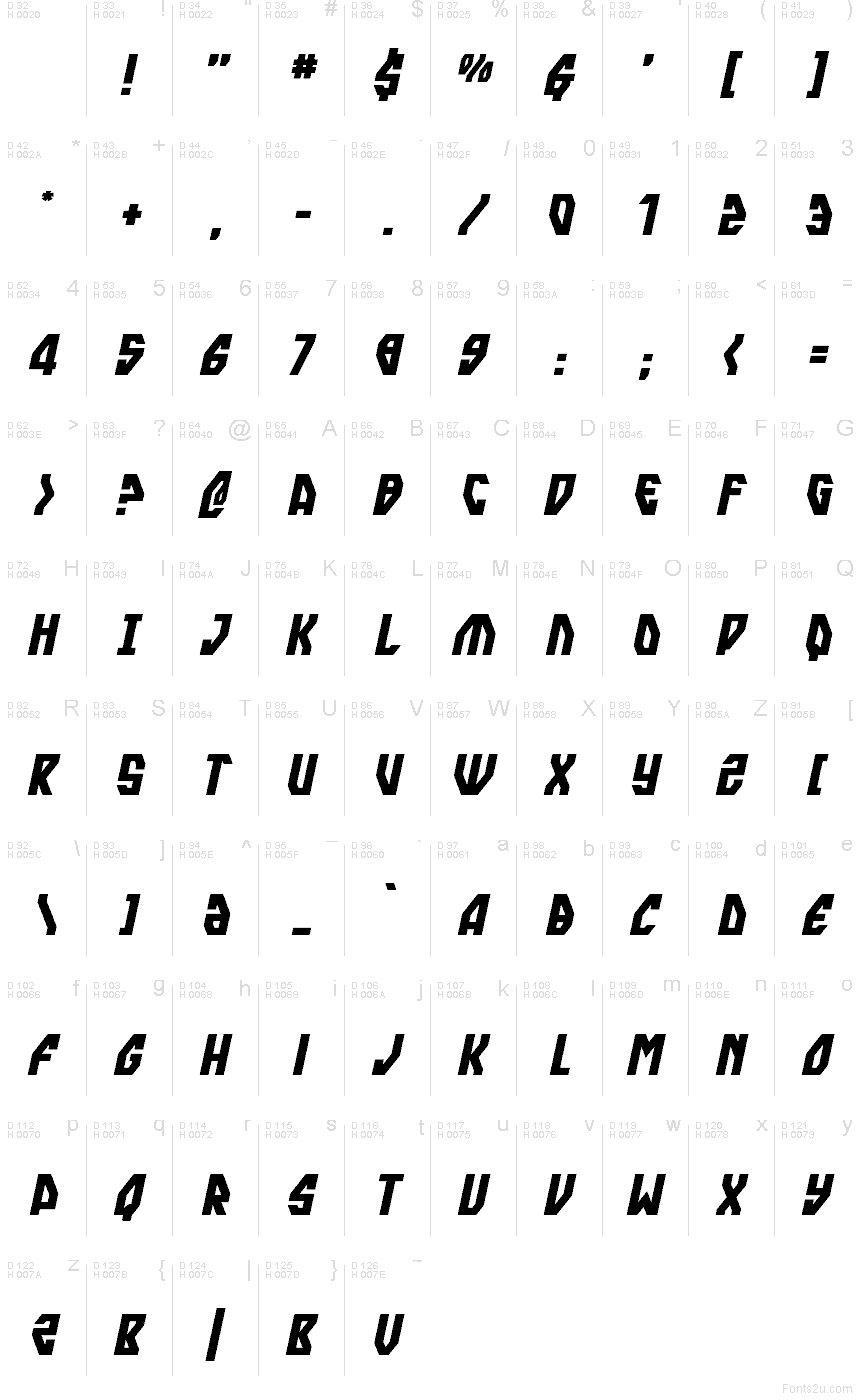
skyrange Expanded Super-Italic
Skyrange Expanded Super-Italic font by Daniel Zadorozny of Iconian Fonts jolts forward with a wide, razor-cut sprint—each letter feels stretched, sharpened, and pushed into overdrive. Part of the Skyrange Expanded family, it’s a free techno font, and this typeface brings crisp, angular energy that reads like a racing HUD or a sci‑fi chassis decal.
Using Skyrange Expanded Super-Italic works beautifully for esports team branding, game titles, stream overlays, futuristic posters, tech event promos, automotive graphics, album art, and bold logo wordmarks. Keep the tracking slightly open so the slant can breathe, and pair it with a calm geometric sans for body copy to let this free font do the shouting.